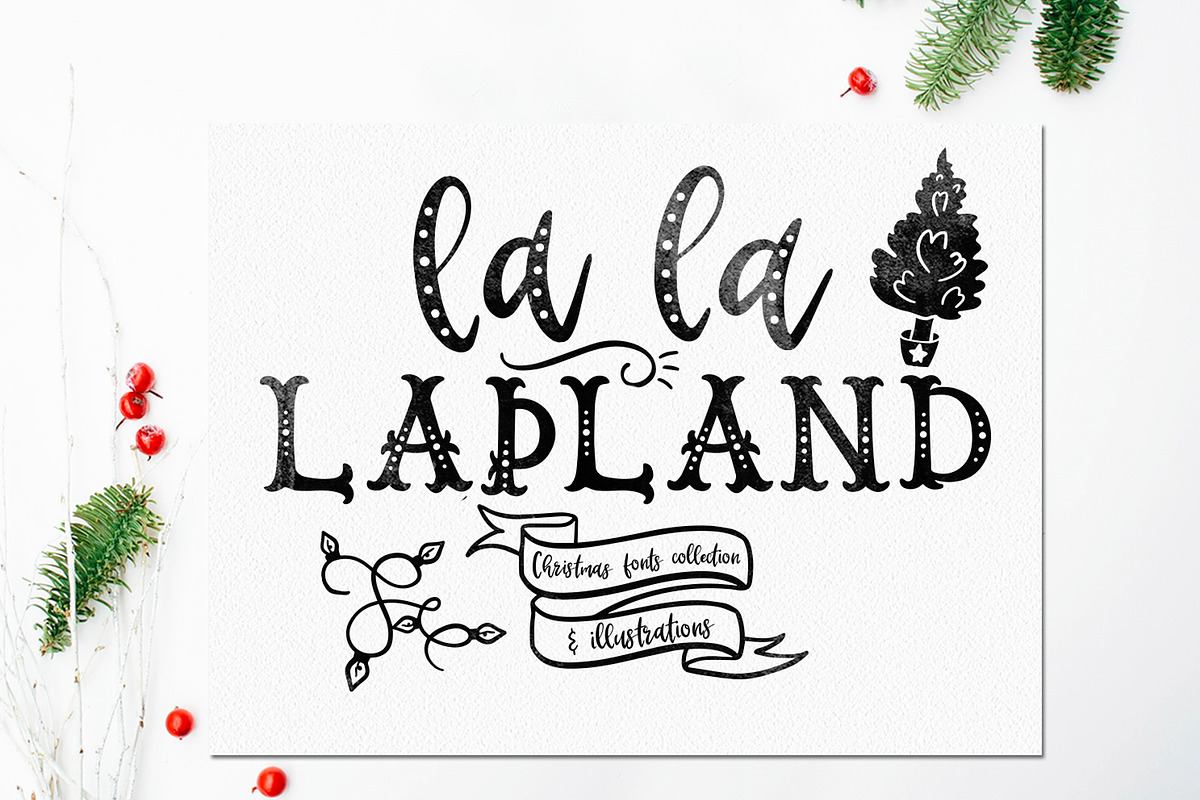
LaLaLapland Fonts & Illustrations Free Download is a whimsical and cozy design bundle that captures the magic of winter and holiday cheer. Featuring a charming hand-drawn font and a delightful set of illustrations, this pack is perfect for Christmas cards, seasonal packaging, children’s books, DIY crafts, and festive social media content.
The font has a playful handwritten style that feels warm and inviting, while the included illustrations—ranging from snowflakes and pine trees to cozy mittens and cheerful characters—add an extra layer of storytelling and visual fun.